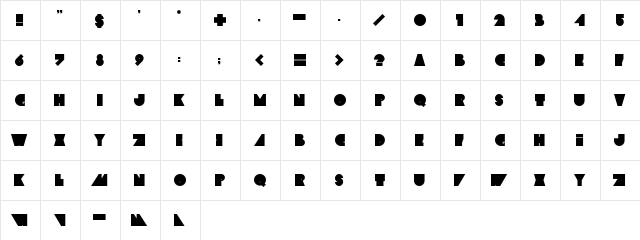
Chellovek Bold Font Preview
Chellovek Bold
Chellovek Bold Font Details
| Foundry | Grow Design Work |
| Designer | Bran Dougherty-Johnson |
Design Context for Chellovek Typeface
Chellovek is a composed and adaptable typeface that performs quietly and consistently across a wide range of design contexts. The heavy weight commands attention and anchors typographic hierarchies.